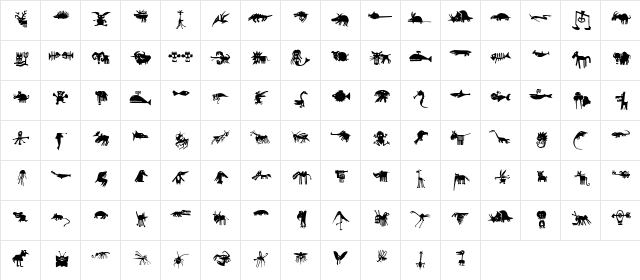
Chamaeleon Medium
Design Context for Chamaeleon Typeface
Chamaeleon is a composed and adaptable typeface that performs quietly and consistently across a wide range of design contexts.